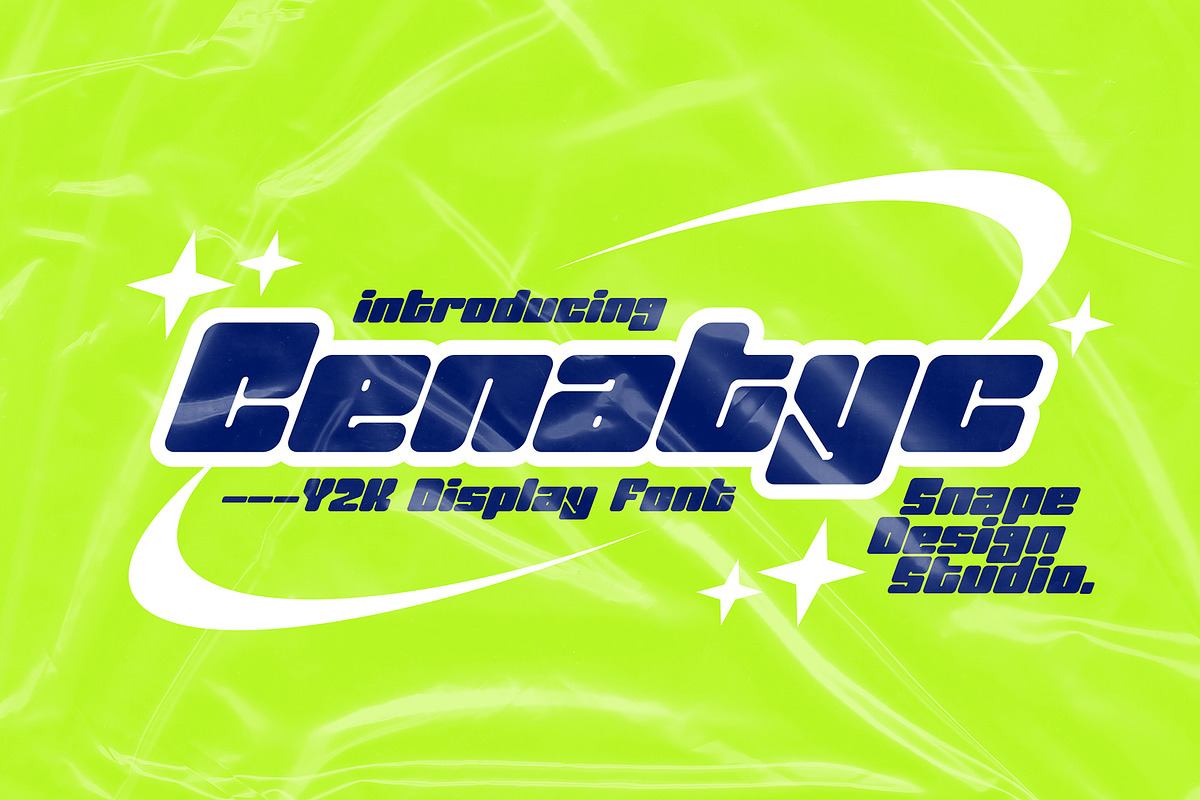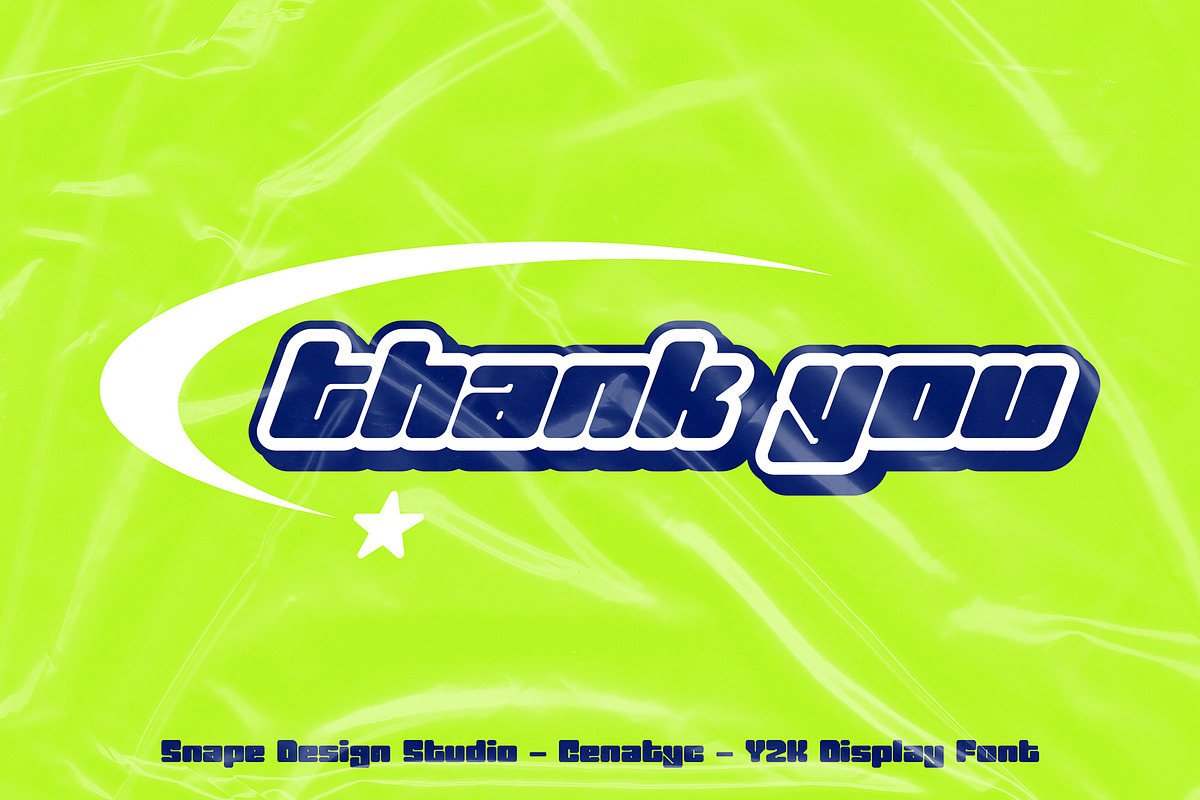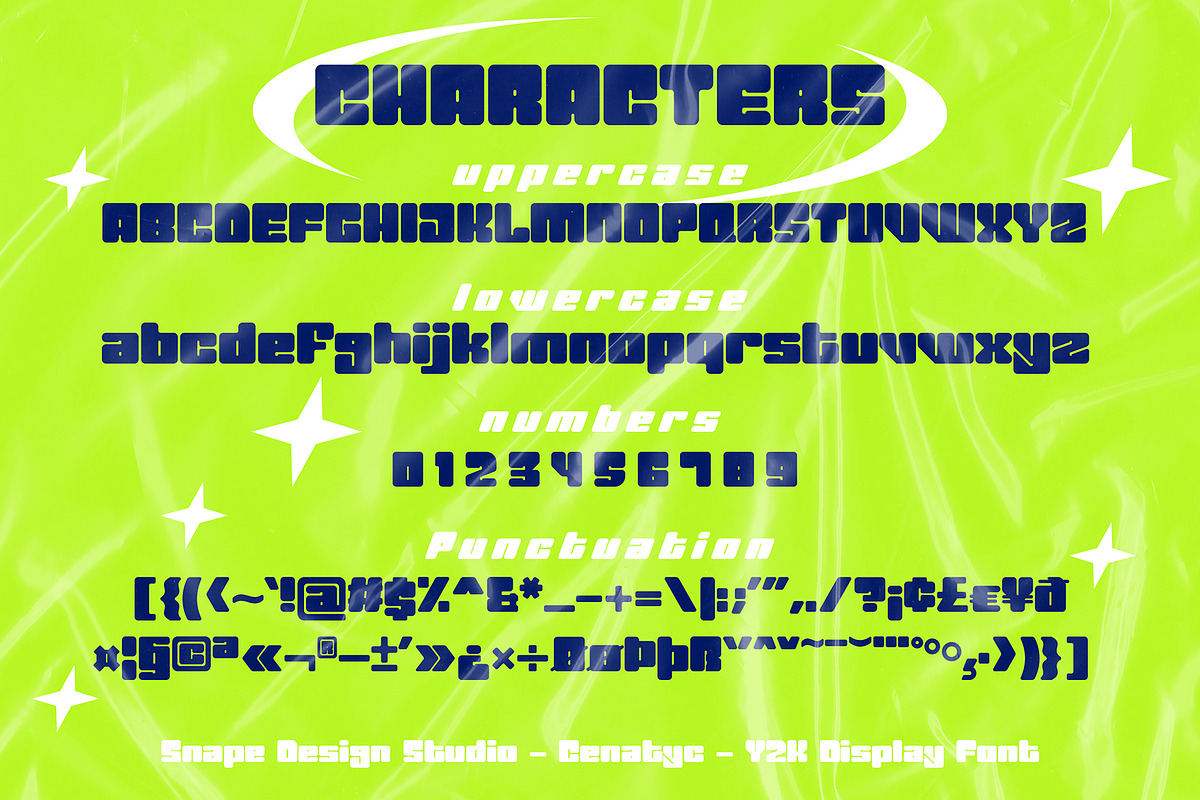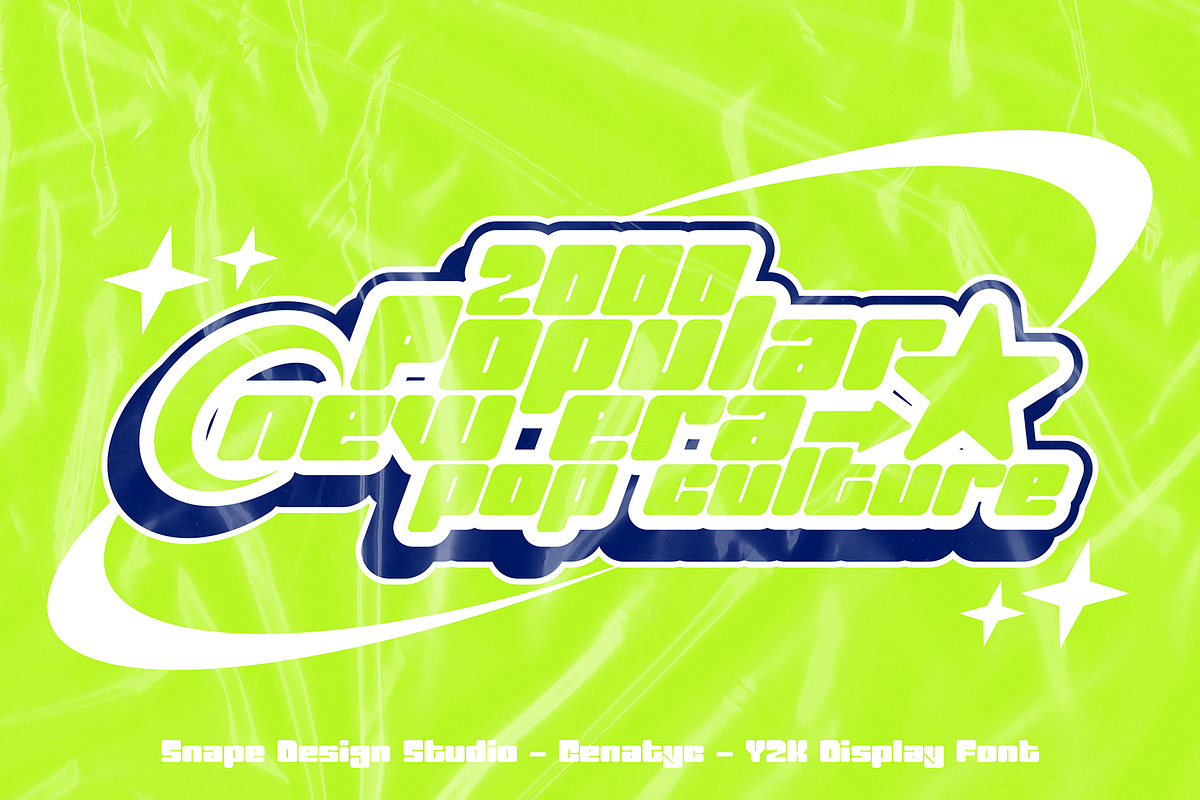
Cenatyc - Y2K Font
Cenatyc is a futuristic font. Heavy influence by Y2K design era through music and their pop culture, perfect for technology, digital, space galaxy theme. Also suitable for movie, documenter, film, logo, poster, game, book cover, headlines, title and many more projects. Add this font to your creative ideas and notice how it will make them stand out!